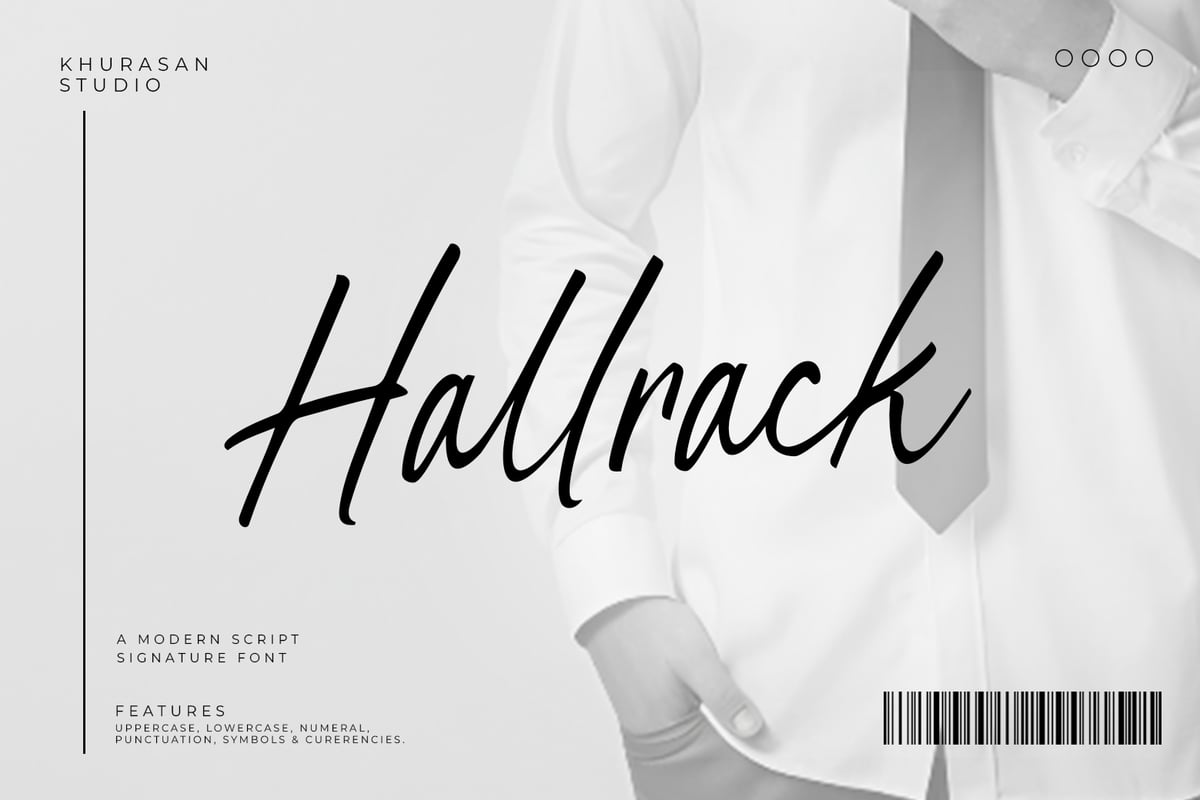
Hallrack - A Modern Script Signature Font
Transform every sentence into stunning art with Hallrack — the modern script font that breathes life into your typography.
Hallrack is a contemporary handwritten script font that captures the authentic beauty of real hand-lettering. Each stroke pulses with energy — fluid, expressive, and brimming with character. This typeface delivers genuine handwritten charm that infuses your designs with warmth, sophistication, and premium appeal.